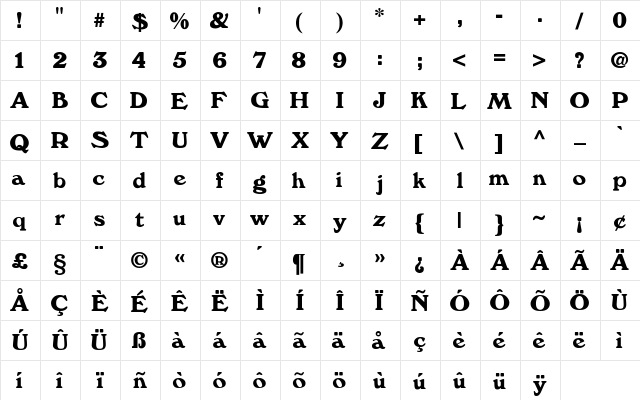
Annfold Regular
Design Context for Annfold Typeface
Annfold offers clean, dependable letterforms without strong stylistic allegiance, making it a practical choice for designers who need flexibility.
Pro Tip: Pair Annfold with a font of contrasting weight or personality to build a more expressive typographic hierarchy.